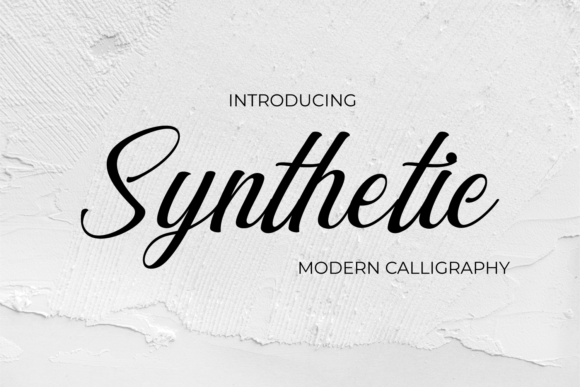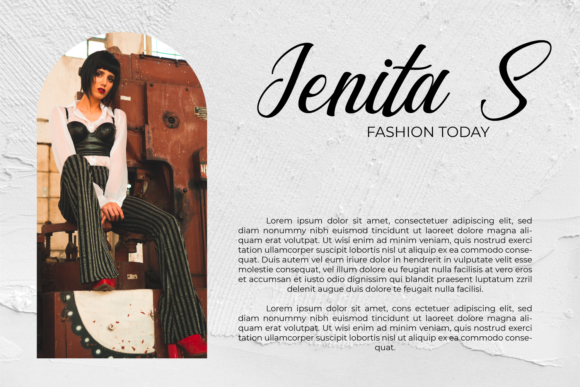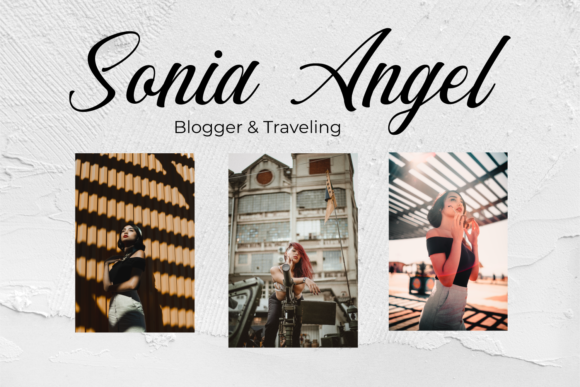
Synthetic Font
About Synthetic Font
Synthetic is an elegant script font with a contemporary atmosphere and impeccable form, inspired by timeless classic calligraphy. Not too thin and not too thick, balanced and varied, this font was designed to enhance the beauty of your projects.